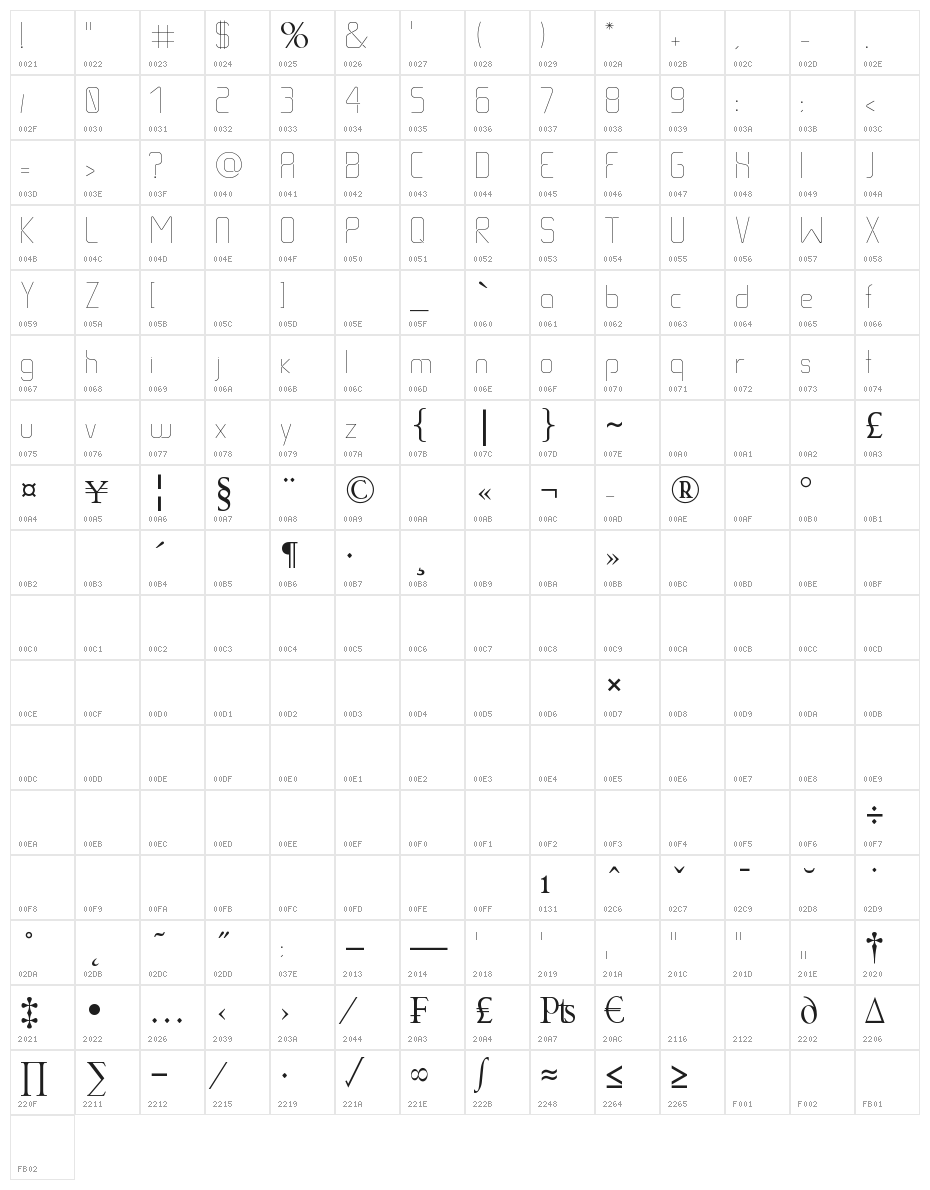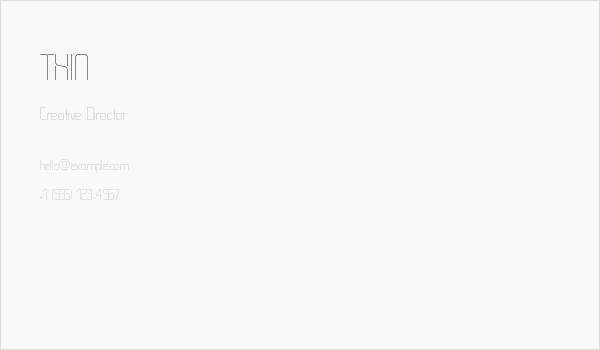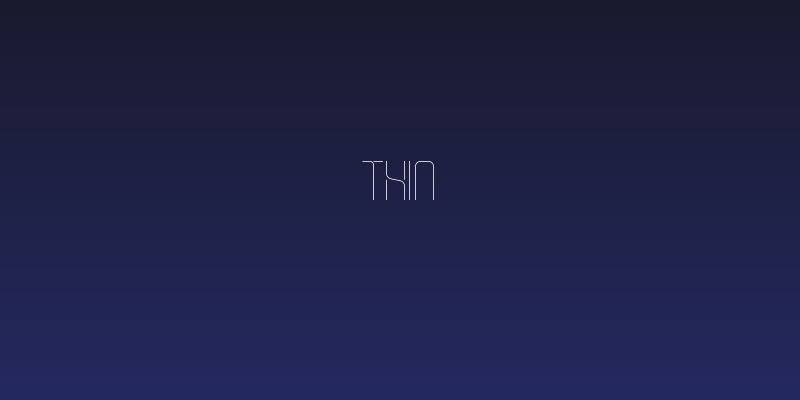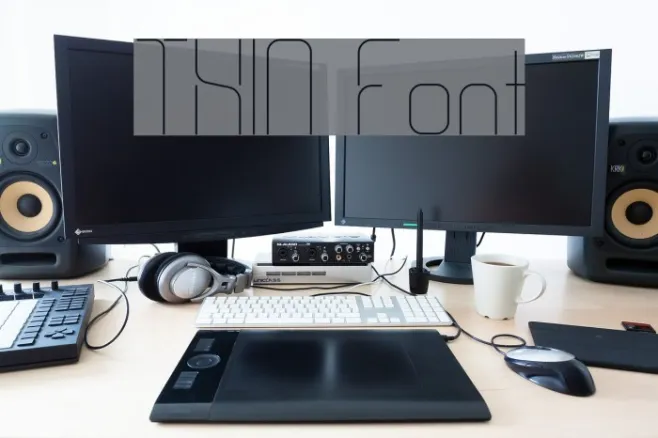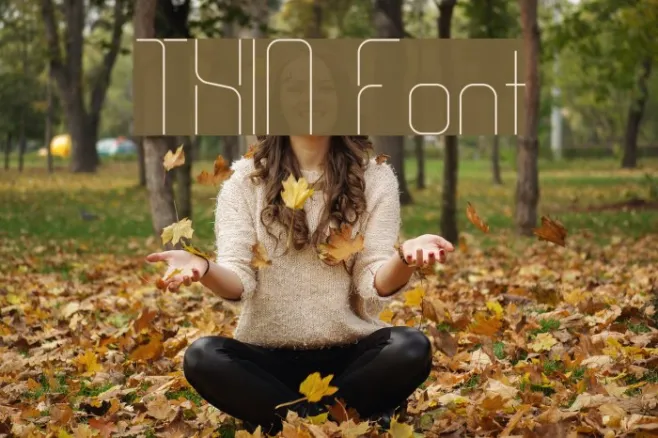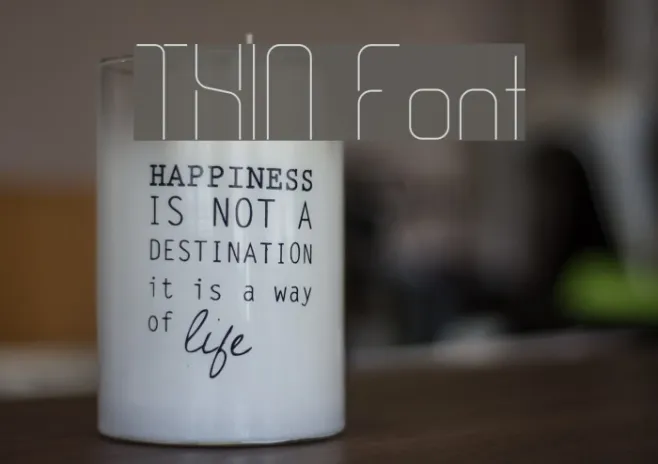
THIN Font
THIN Description
This font features a modern, geometric design with thin, consistent line weights throughout. The characters are constructed with a minimalist approach, emphasizing clean lines and open spaces. The uppercase letters are tall and narrow, while the lowercase letters maintain a similar width, creating a cohesive look. The numerals and special characters follow the same design principles, ensuring uniformity across all glyphs. The overall appearance is sleek and futuristic, making it suitable for contemporary design projects.
| Use Case | Headlines, Logos, Digital interfaces |
| Proposed Projects | Ideal for tech branding, modern posters, digital interfaces, and minimalist graphic design projects. |